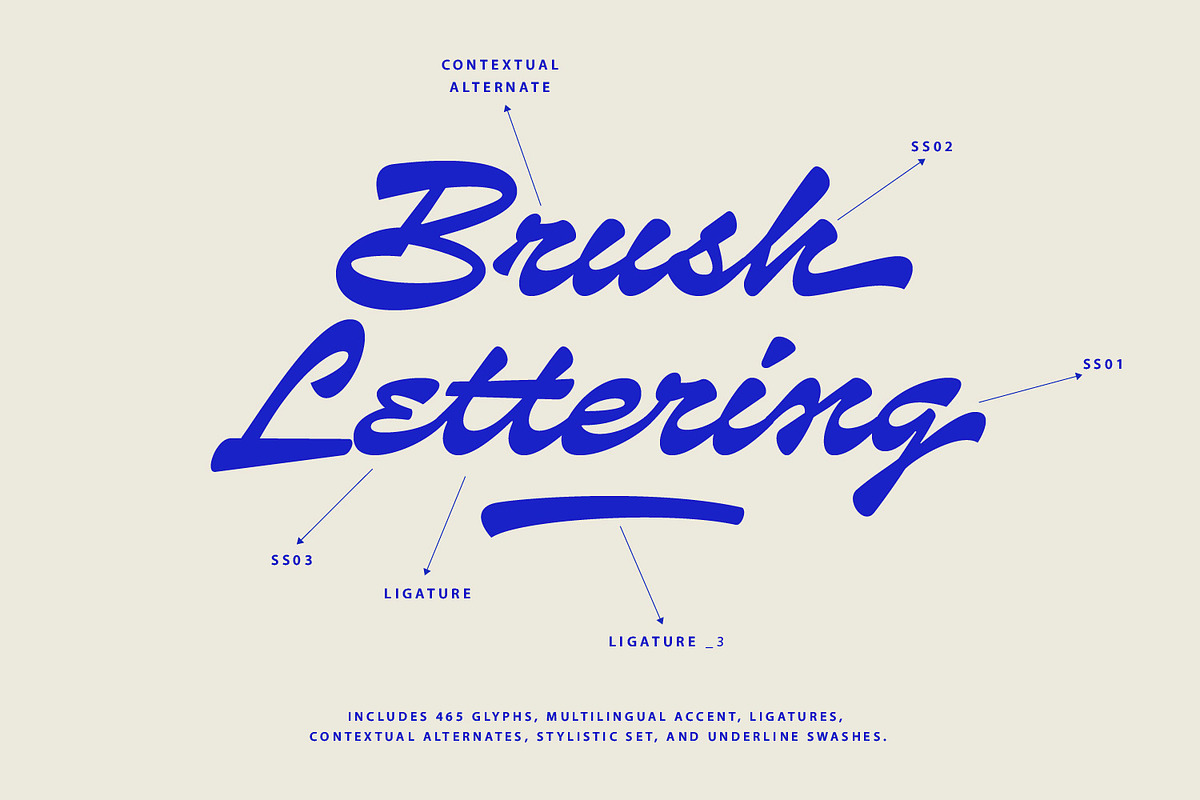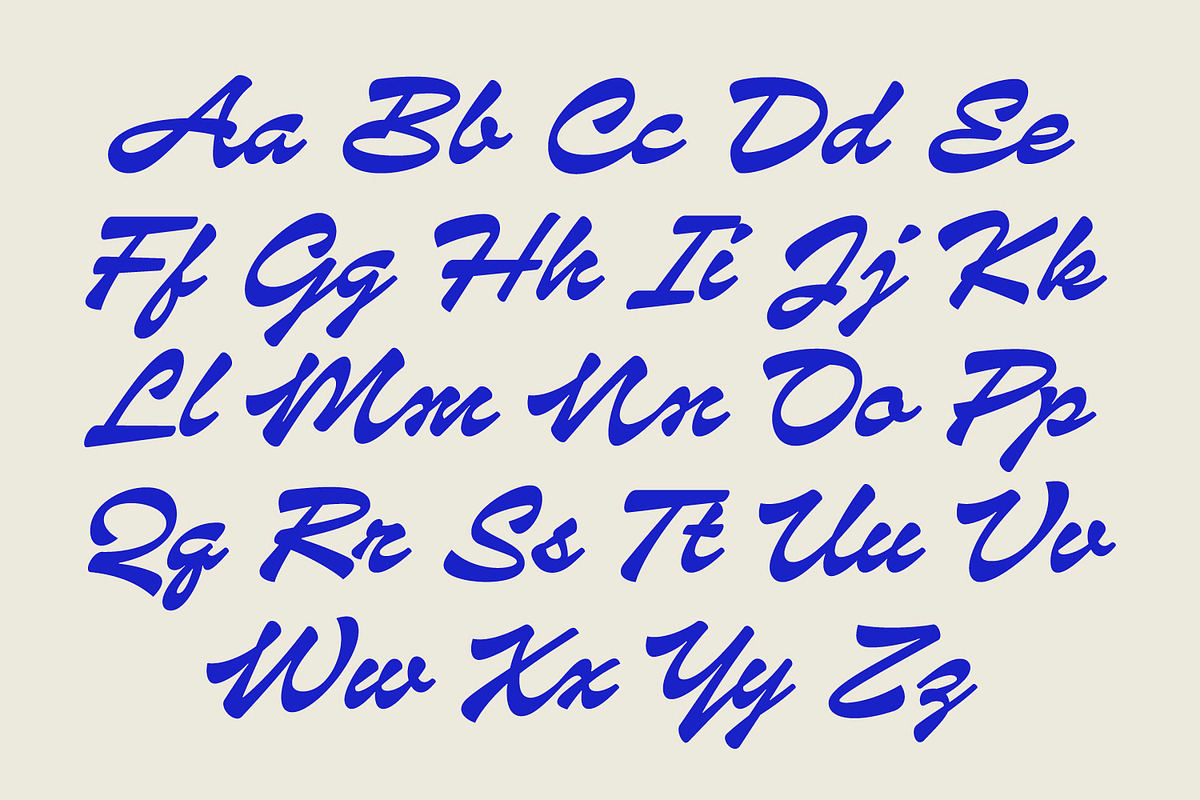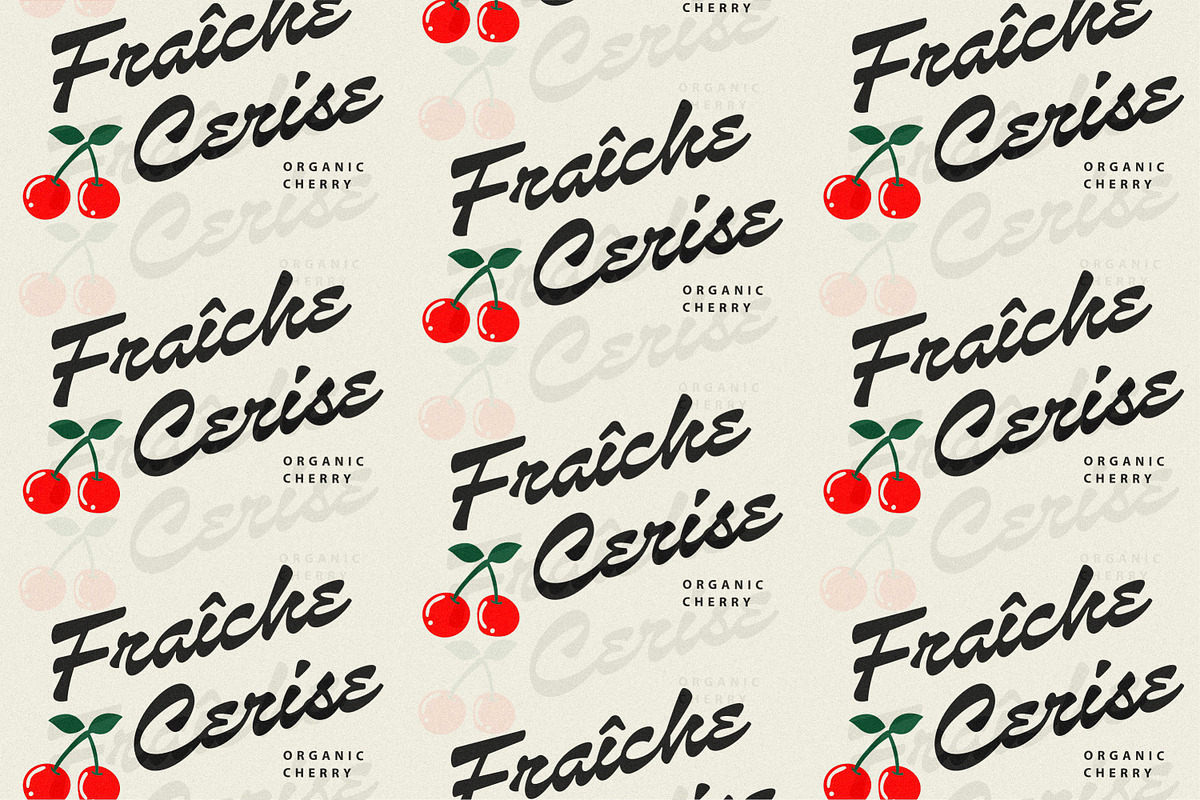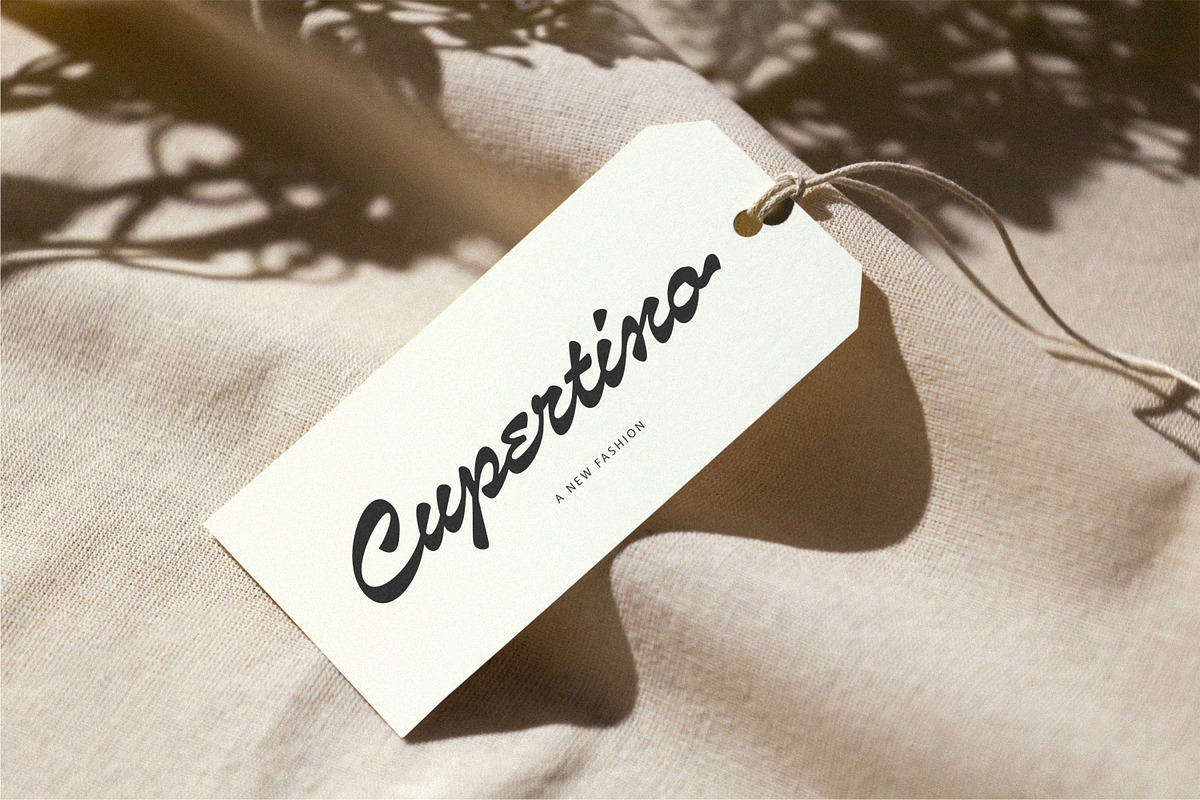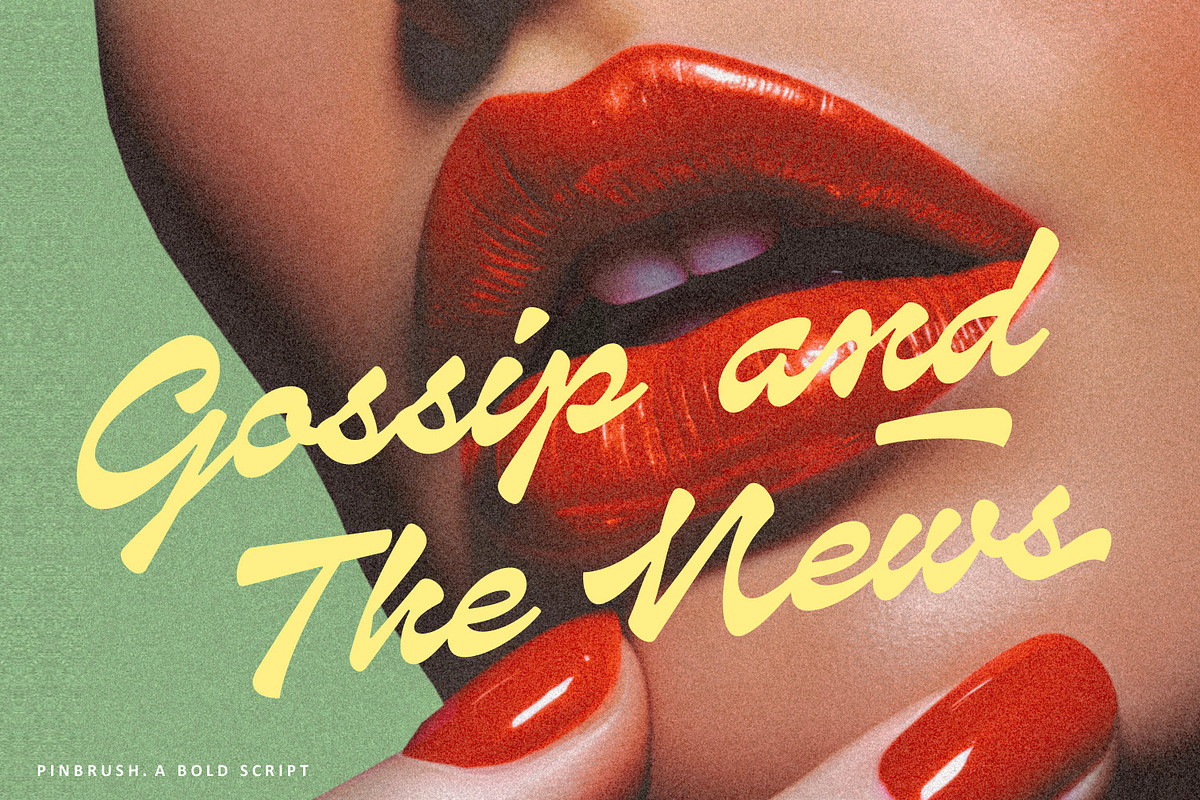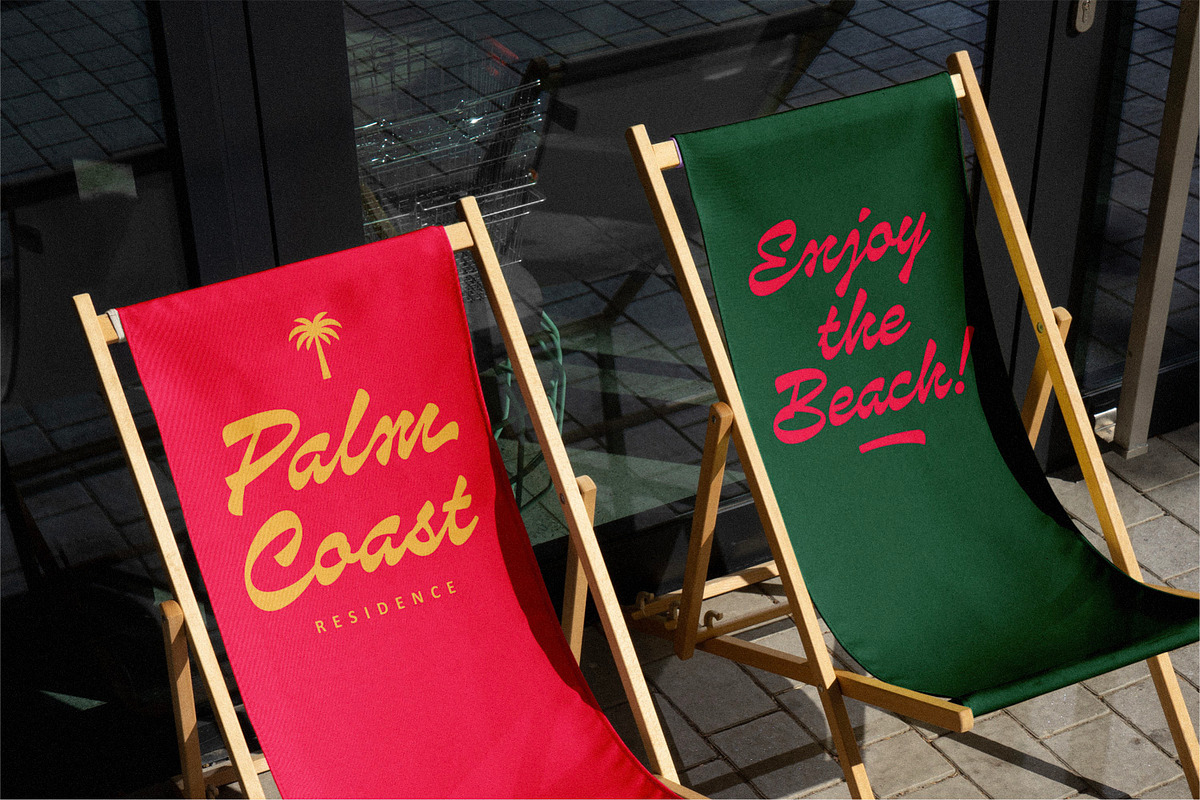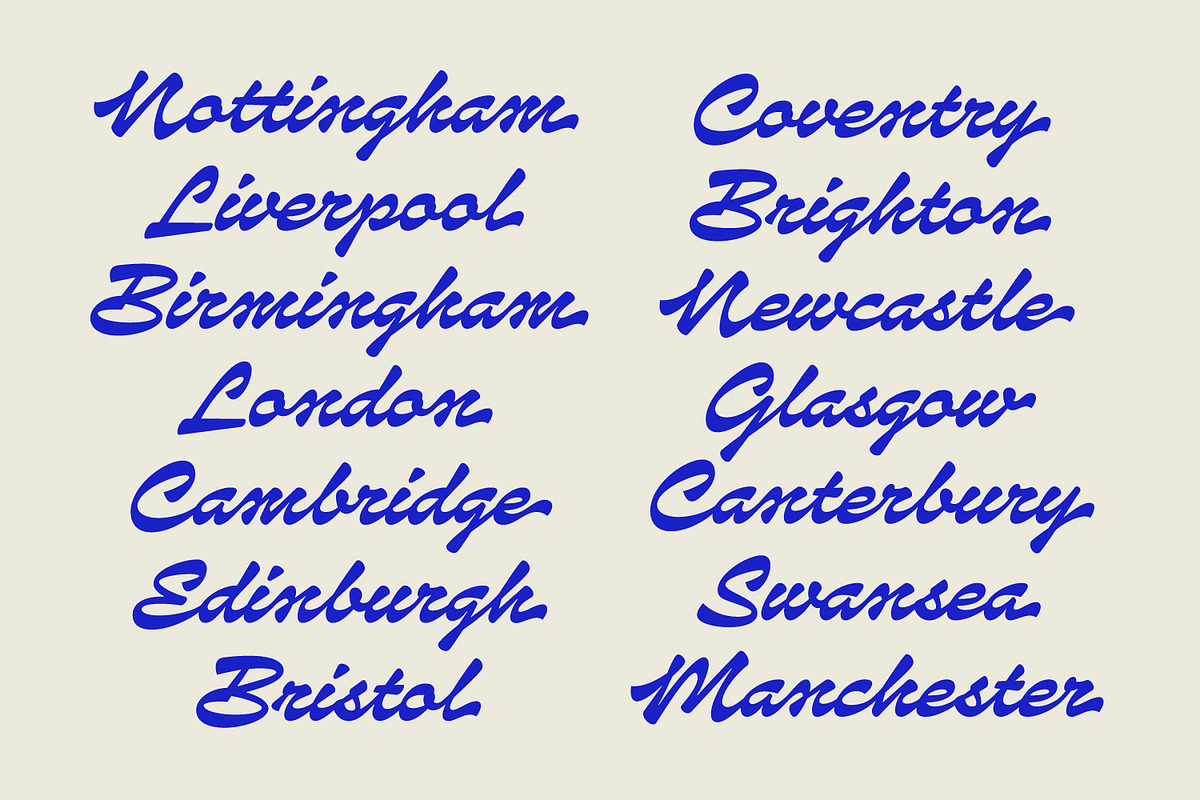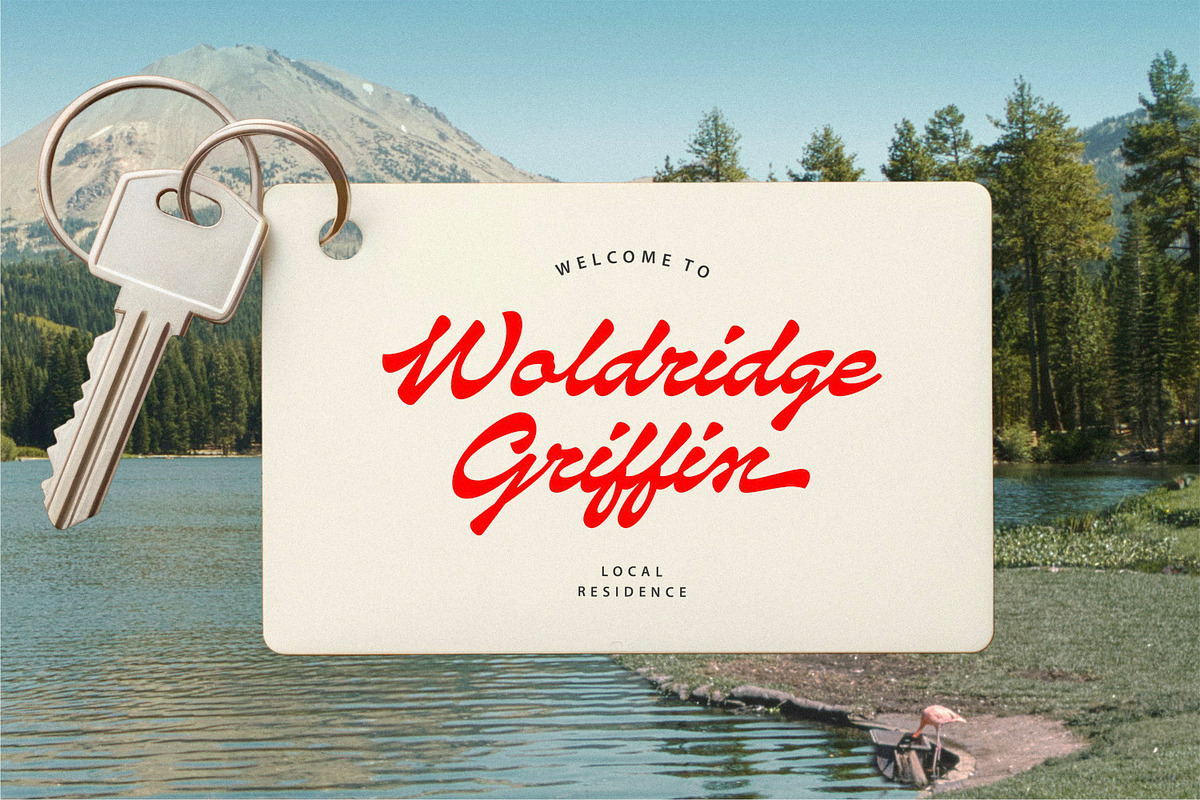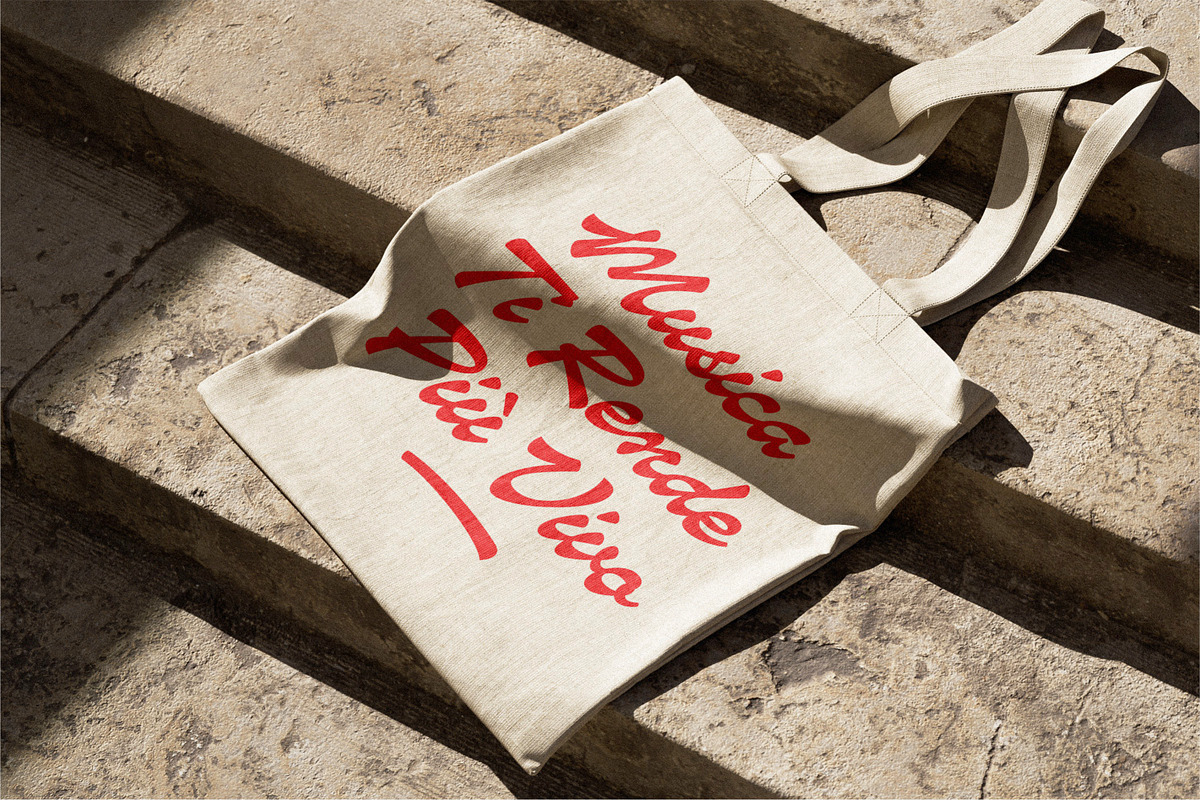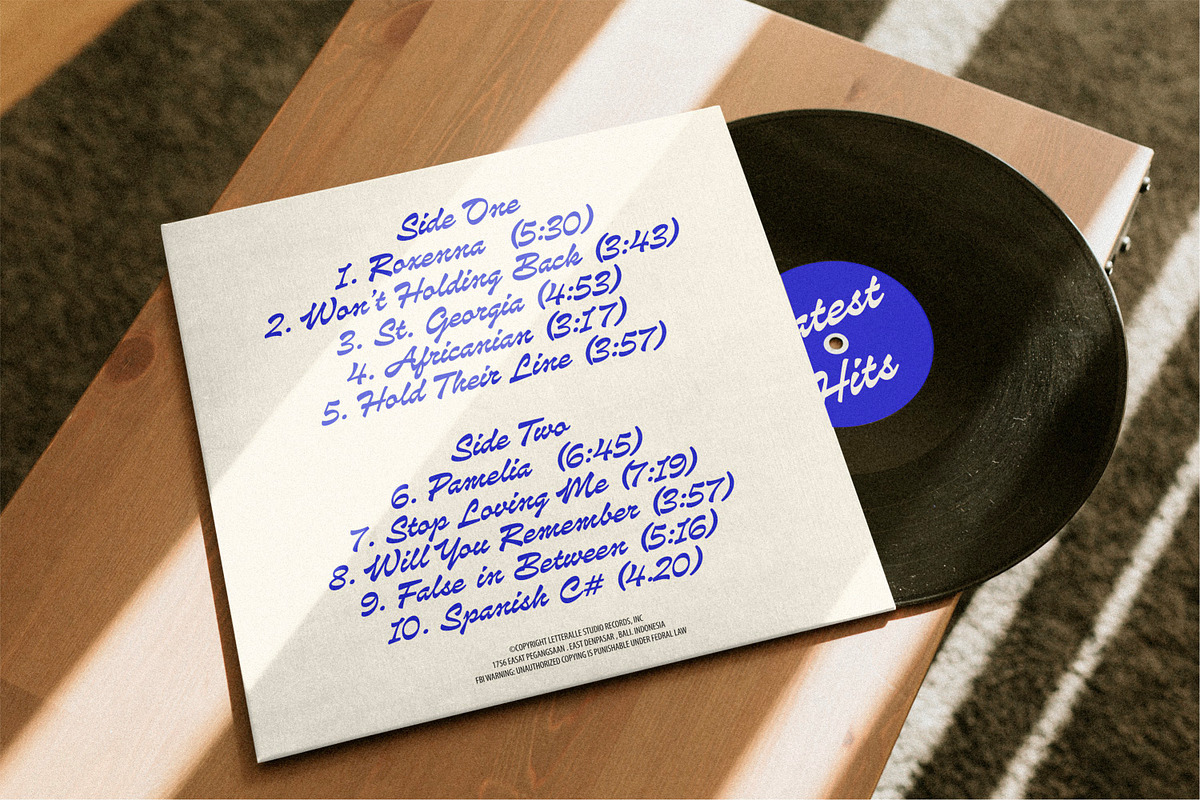
Pinbrush Script Font
Meet Pinbrush, the bold script font that brings retro vibes and pop culture coolness to your designs. Inspired by the styles of 80s, Pinbrush is the go-to choice for a laid-back yet eye-catching aesthetic. Whether you're working on a logo, merch, poster, packaging, ads, social media posts, T-shirts, or anything else, Pinbrush has got you covered. Give your projects a dose of vintage charm and let Pinbrush add that extra flair that makes your designs stand out in a crowd. Elevate your creativity with this casually cool font that effortlessly blends old-school vibes with modern versatility.
- Ending Swashes
- Underline Swashes (just type _1 to _6)
- Numeral & Punctuation.
- Ligature.
- Multilingual Support.